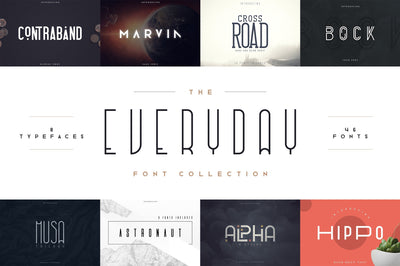
Introducing The Everyday font collection 8in1
In this Collection you will find :
Contraband - display font
- Uppercase,lowercase,numeral,punctuation & Symbol
- Multilingual
- Tons of alternative glyphs
Marvin sans serif
- Uppercase,lowercase,numeral,punctuation & Symbol
- Multilingual
- Regular
- Rough
- Outline
- Alternative glyphs
Crossroad - vintage typeface
- Uppercase,lowercase, numeral,punctuation & Symbol
- Sans serif
- Slab serif
- Stretched
- 2 outline styles
- Rough
Bock - logo font
- Uppercase,lowercase, numeral,punctuation & Symbol
- Regular
- Clean
- Perfect for headlines and logos
- Multilingual support
Musa - Display typeface
- Uppercase,numeral,punctuation & Symbol
- 12 fonts
- Short style
- Regular style
- Tall style
Astronaut Display typeface
- Uppercase,lowercase, numeral,punctuation & Symbol
- Regular
- Long
- Outline
- OutlineTwo
- Multilingual support
Alpha - display font
- Uppercase,lowercase,numeral,punctuation & Symbol
- Multilingual
- Regular
- Outline
- Rough
- Rough two
Hippo - sans serif
- Uppercase,lowercase, numeral,punctuation & Symbol
- Regular
- Outline
- Rough
- Perfect for headlines and logos
- Multilingual